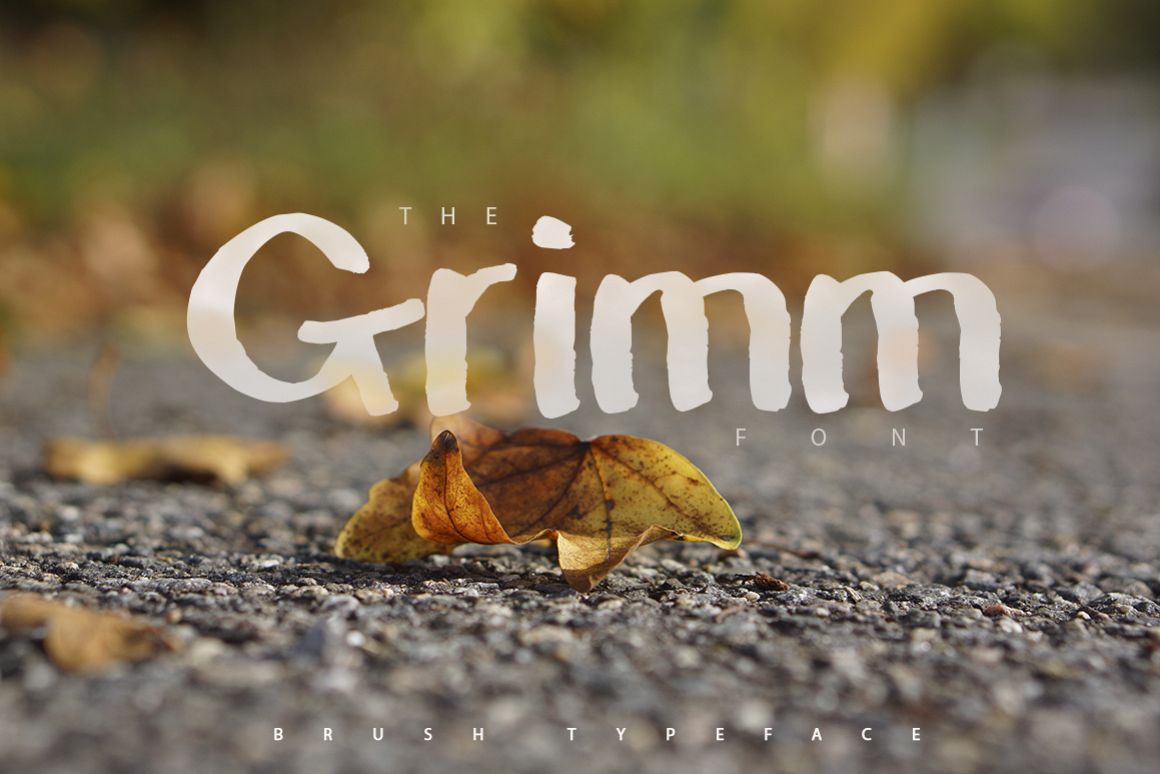
The Grimm Brush Typeface
The Grimm is a hard handmade font family that relive your designs. Bold, regular & light.
All punctuations, extensions, lowercase and uppercase, numbers and webfont.